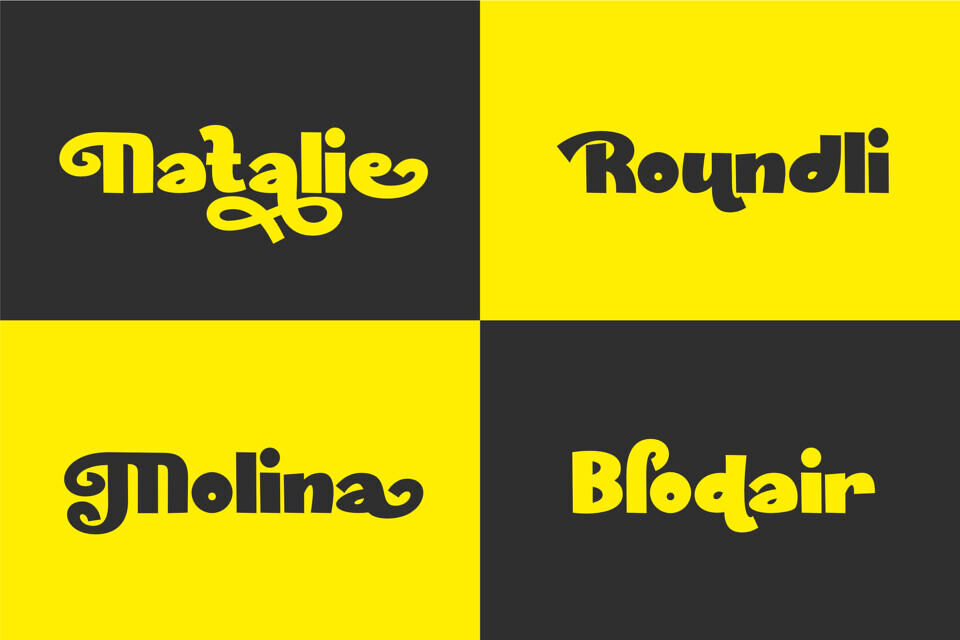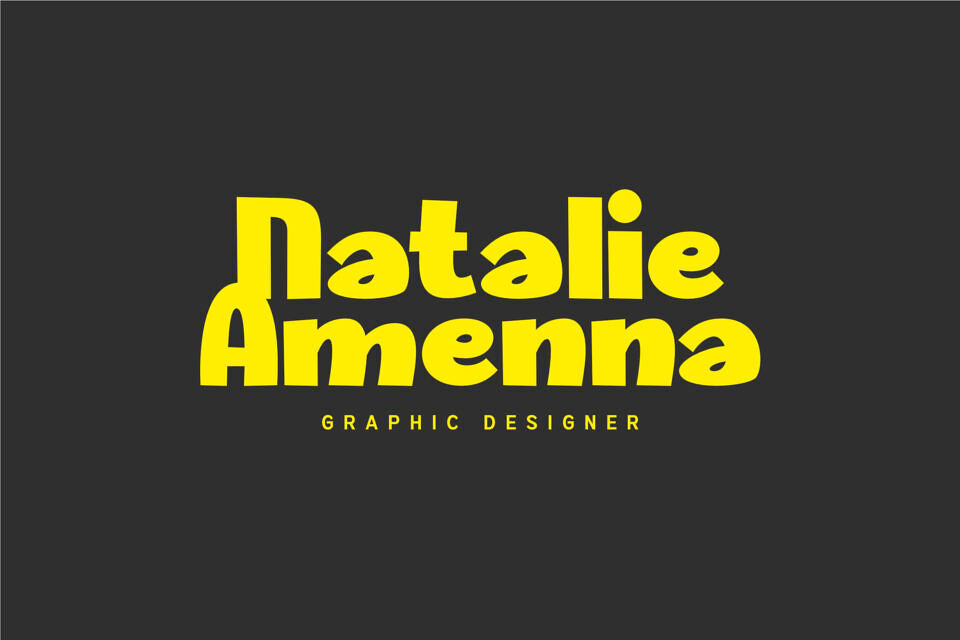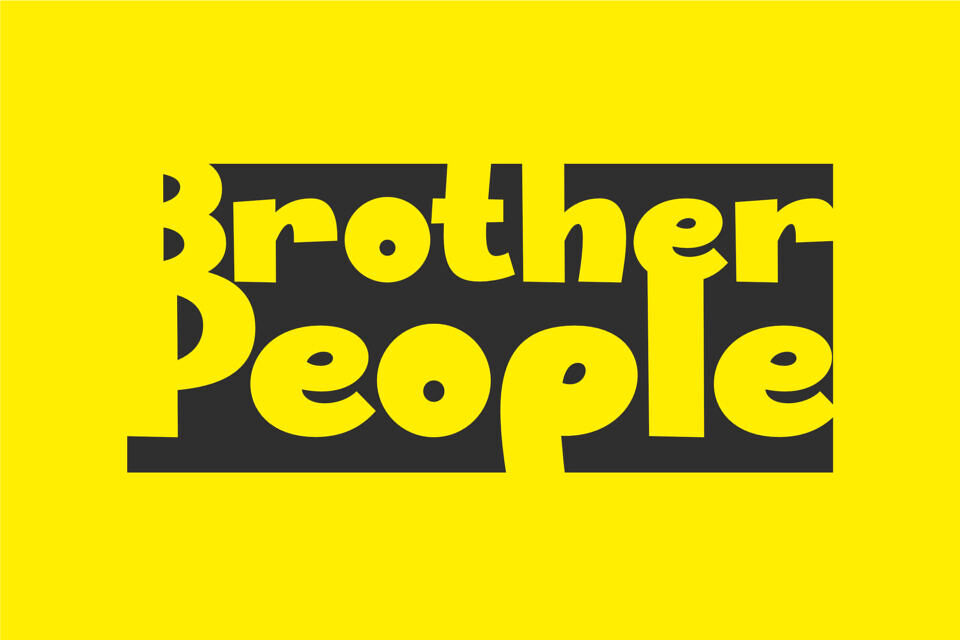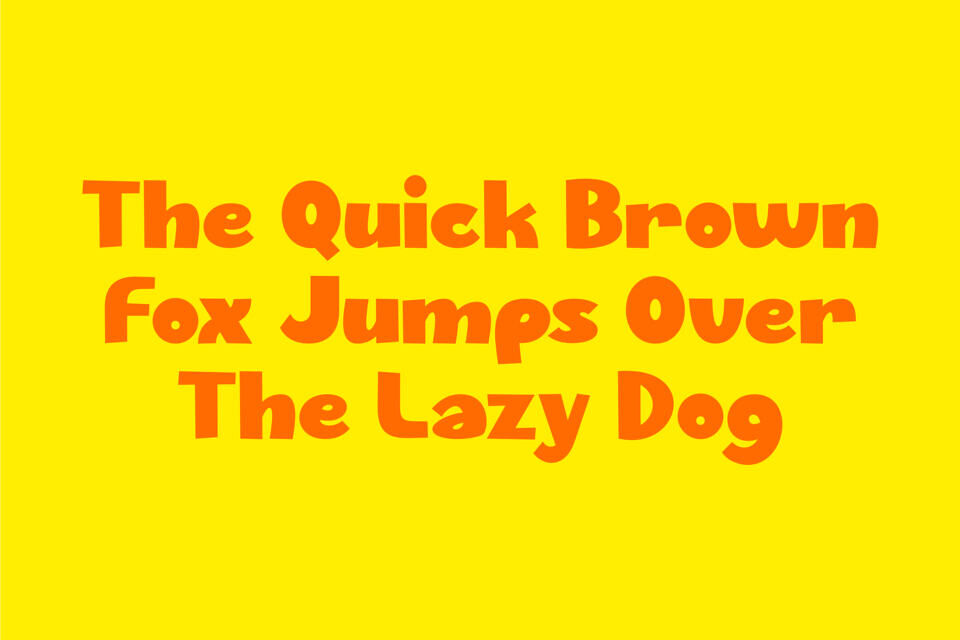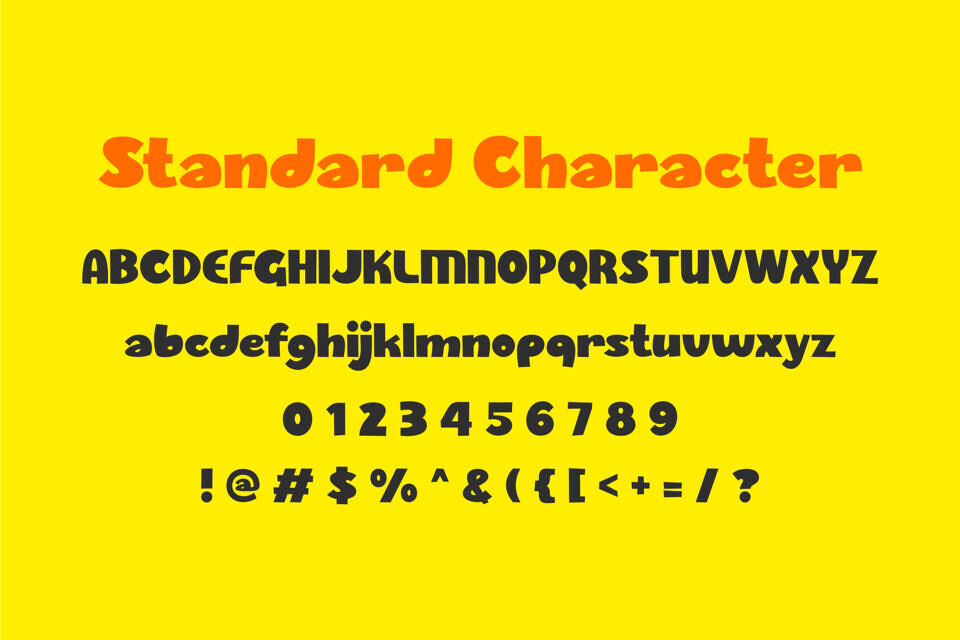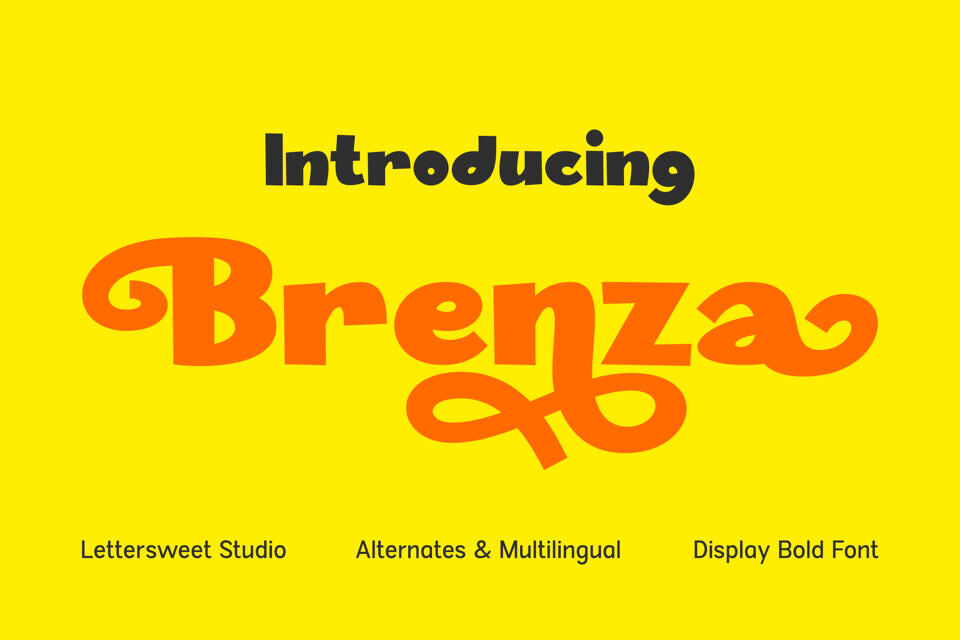
Brenza Font
Introducing Brenza, a bold and playful display font designed to make your designs stand out instantly. With its thick letterforms, smooth curves, and unique decorative alternates, Brenza brings a cheerful and energetic personality to every project. The eye-catching swashes and stylish character variations make it perfect for creating memorable branding and creative typography.
Whether you’re designing logos, packaging, posters, social media graphics, children’s products, book covers, merchandise, or eye-catching headlines, Brenza delivers a strong visual impact while remaining highly readable.